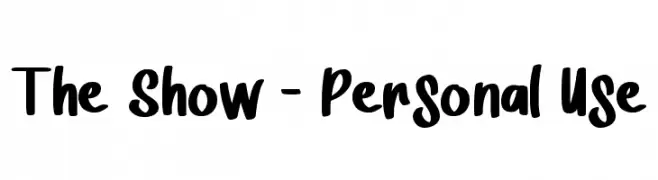
A bold, jagged font with an artistic, graffiti-like style.
A modern, geometric font with bold, uniform strokes and a sleek, minimalistic design.
A flowing, elegant script font with high contrast and ornate details.
A bold, playful handwritten font with thick strokes and rounded edges.
A bold, expressive handwritten font with brush-like strokes.
A bold, graffiti-inspired font with a playful, dynamic style.
An elegant, flowing script font with a refined, handwritten style.
A bold, handwritten font with a playful and casual style.